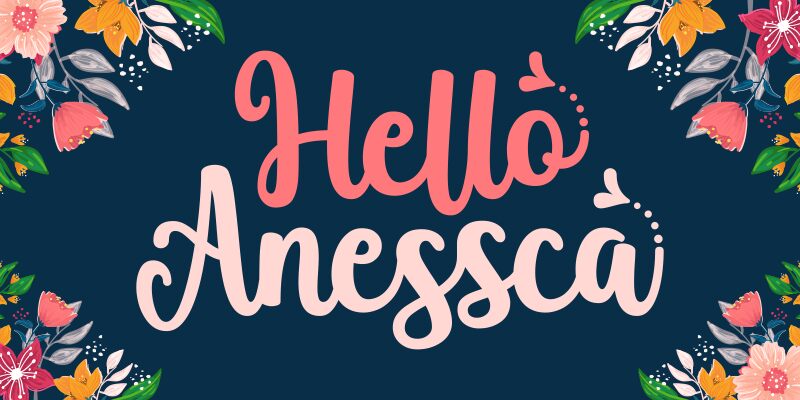
Introducing Hello Anessca - the bold, handwritten font designed by Iwan Kristiaman Nazara; Jasman Nazara; Situjuh Nazara. Perfect for creating eye-catching designs and stylish logos, Hello Anessca is perfect for projects that require a personal touch.